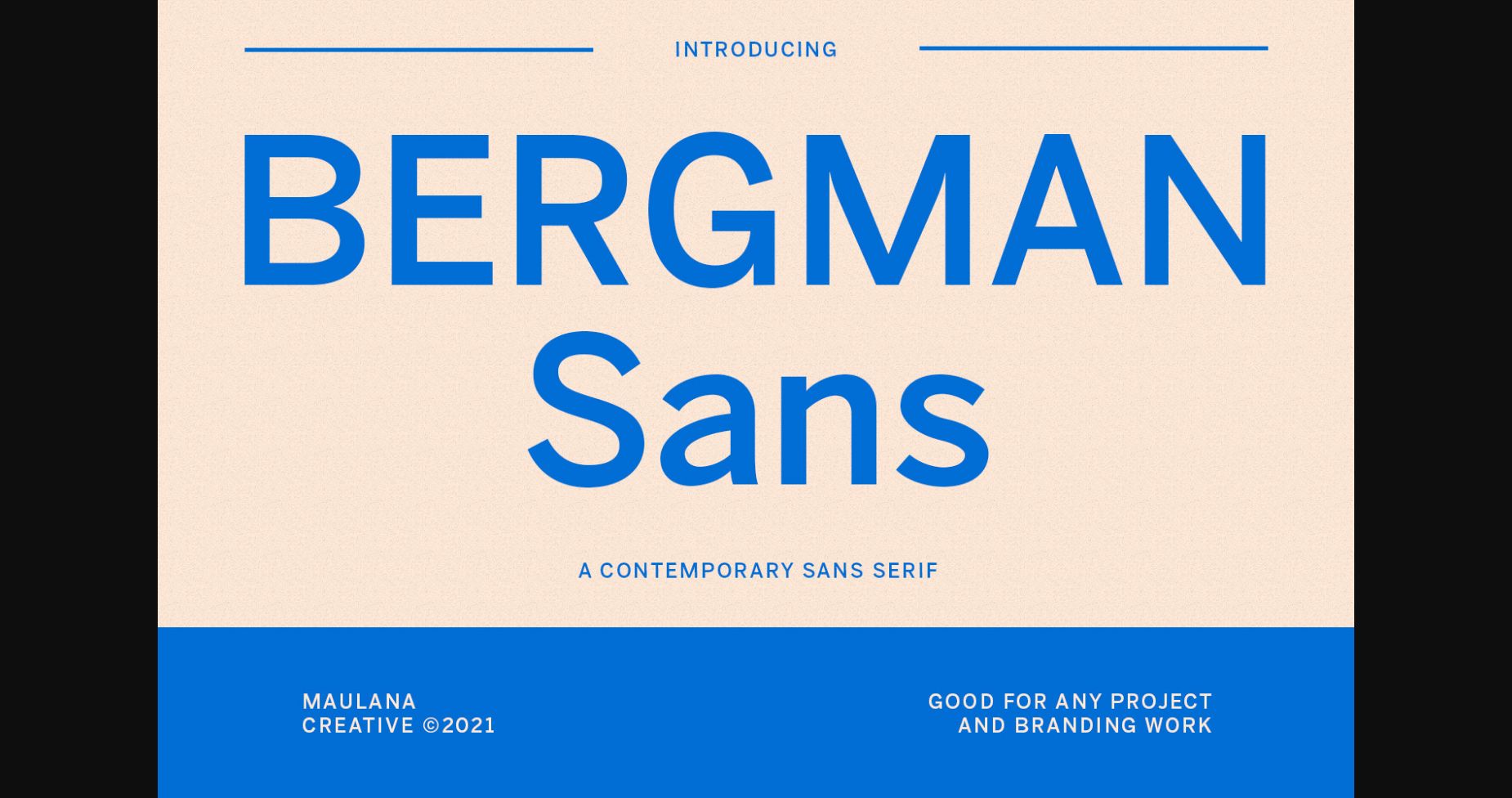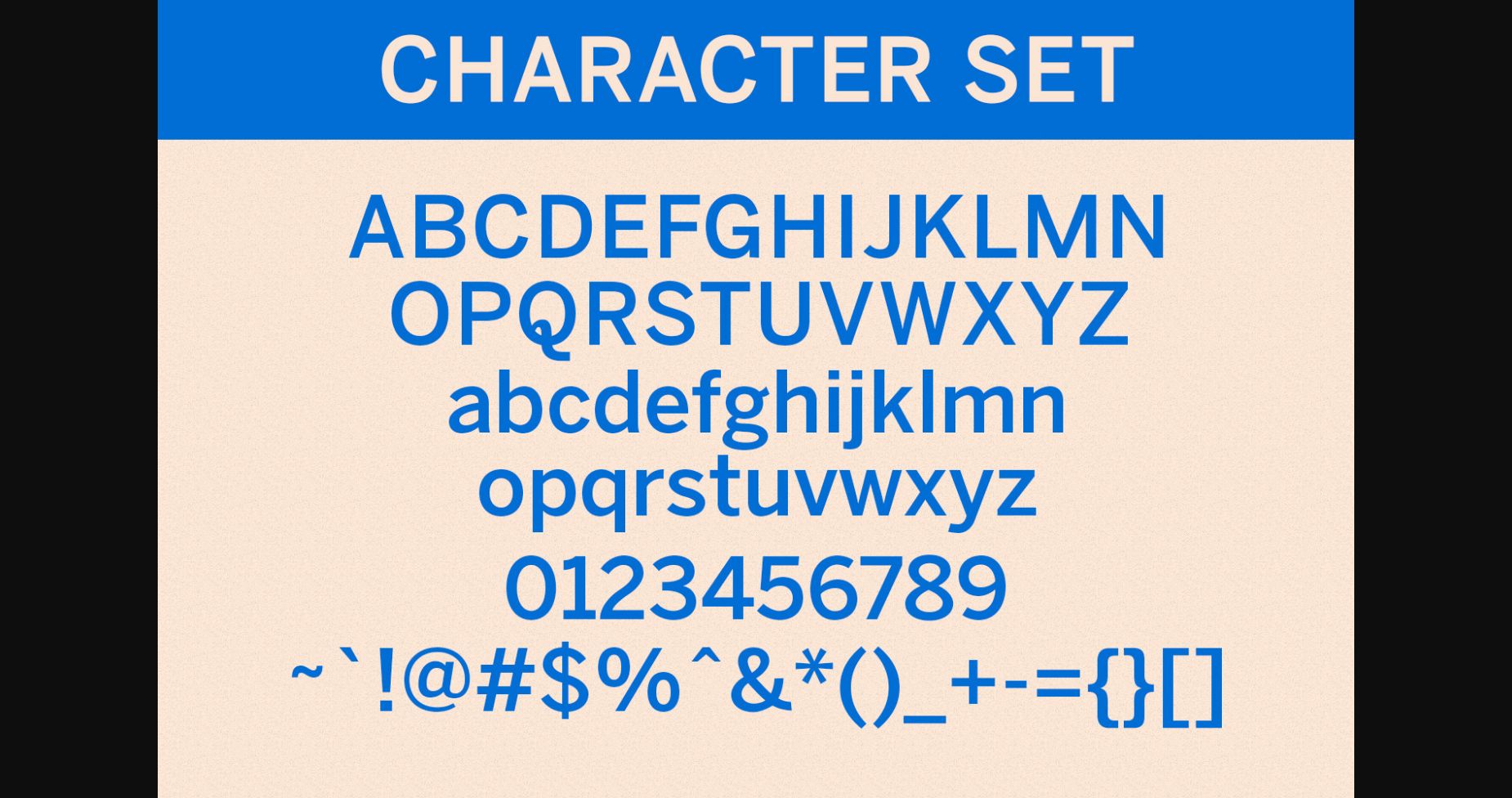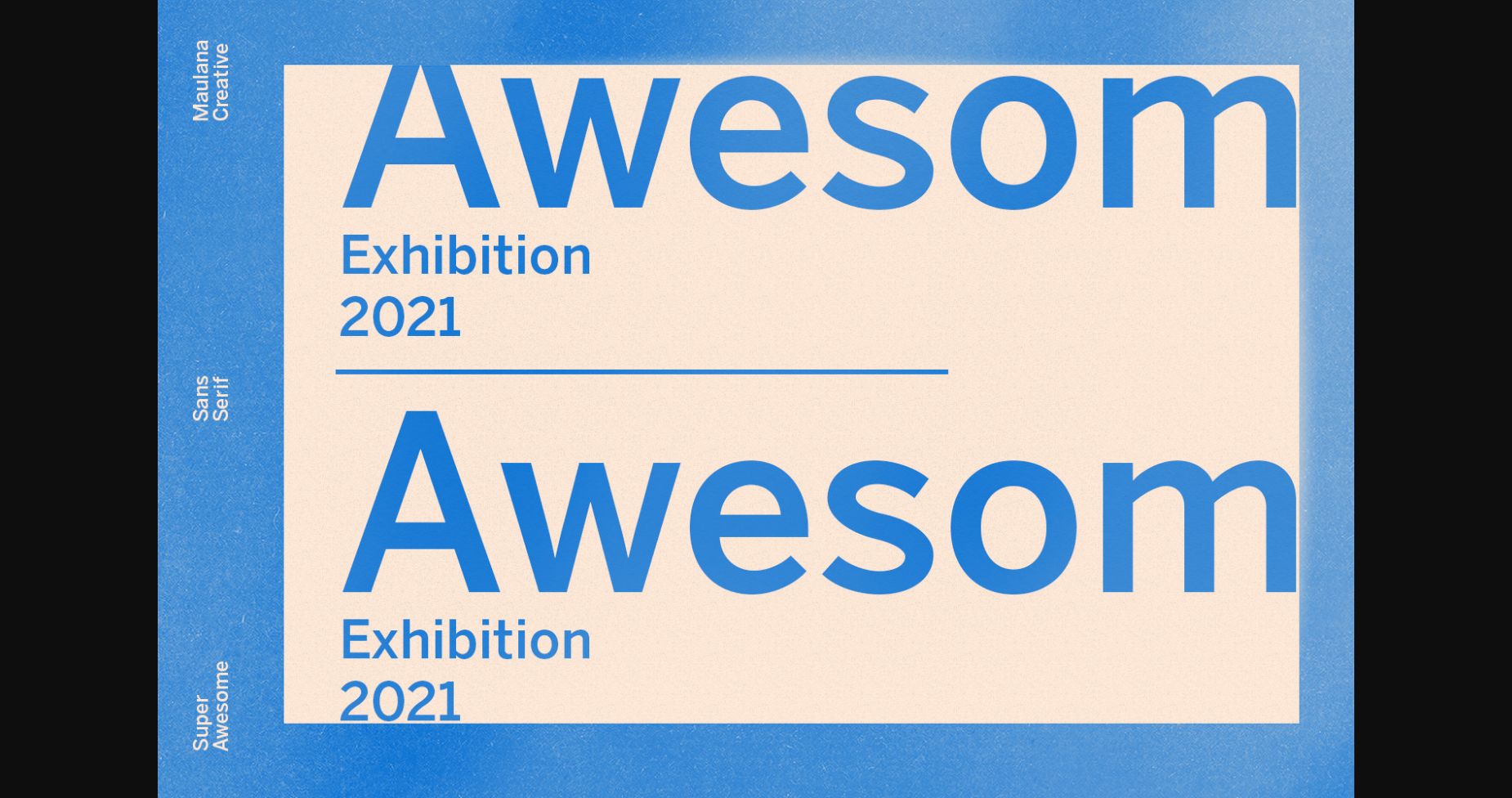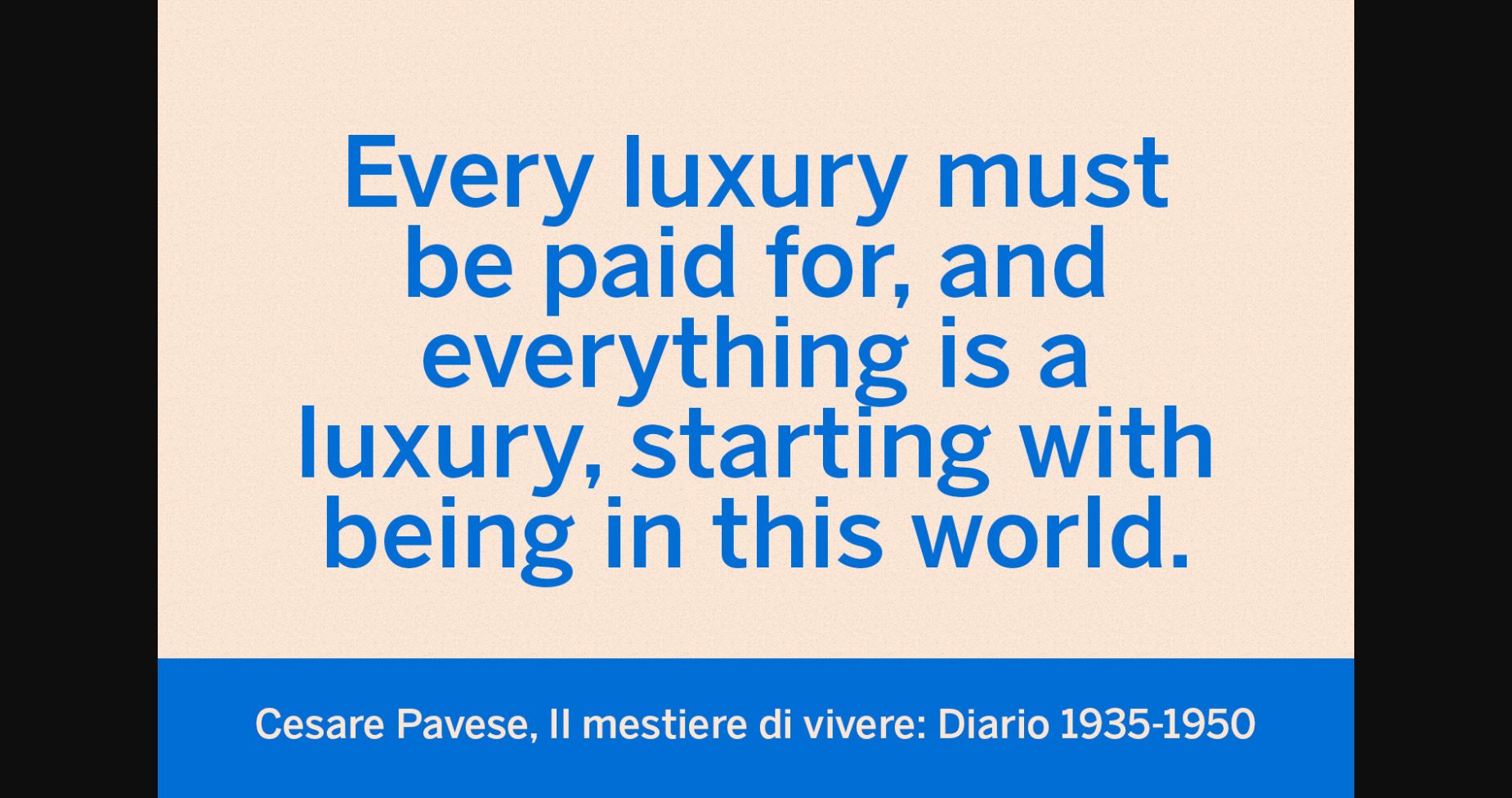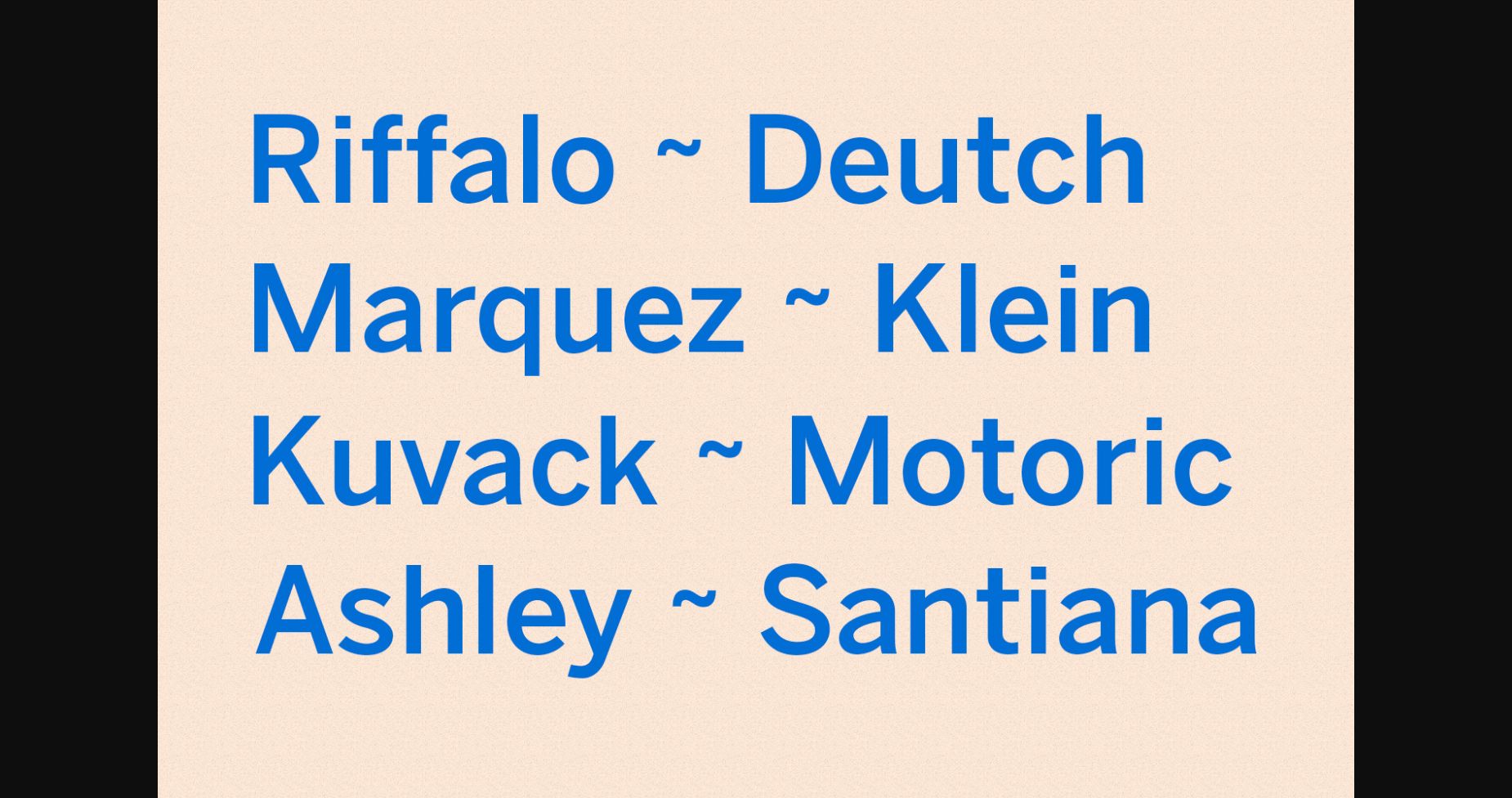
Bergman Font
About Bergman Font
Bergman is a contemporary and clean sans serif font. It can easily be matched to an incredibly large set of projects, so add it to your creative ideas and notice how it makes them stand out!